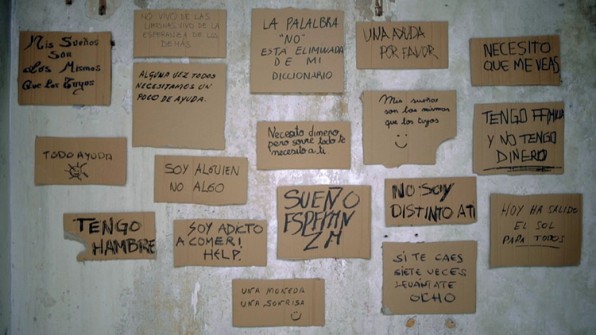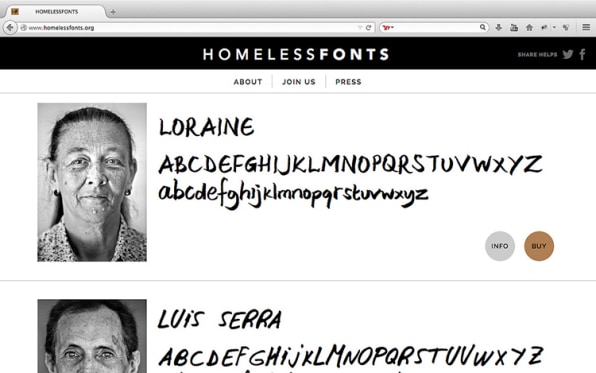
Font designers can become legends and millionaires. Jonathan Hoefler and Tobias Frere-Jones, the celebrated type designers, created one popular font that costs $299 to license for a single computer. Now one foundation, with its project HomelessFonts.org, is hoping that the homeless people it serves can become successful font creators, too.
The idea is the brainchild of The Cyranos McCann, an advertising agency, and the Arrels Foundation, an organization that serves the 3,000-person homeless population in Barcelona, Spain. The funds raised through licensing the fonts will go to fund the work of Arrels in keeping people off the streets.
“This project aims to become an international reference point in this field and also encourage homeless from all over the world to participate in the initiative,” wrote Laia Gilibets, an account executive at Cyranos McCann, in an email.
To design the fonts, the project team held a workshop in which homeless people collaborated with design experts on a series of writing exercises. Using markers of different thicknesses, the participants “stamped their personality on the letters of the alphabet they set down on paper.” From there, professionals converted the letters to digital format and converted them to “usable” fonts while respecting the creators’ personalities.
There are the thick lines of Luis Serra font, based on the handwriting of a man named Luis Serra, a man who became homeless after struggling to find stable work. There are the curlicues of Francisco font, based on the work of Francisco, an older man who lives on the streets but used to be a graphic designer. There’s the childlike scrawl of Gemma, a 37-year-old who has been on the street after a series of misfortunes and wrong decisions. Now, anyone can go to the website and buy a license for one of several typefaces.